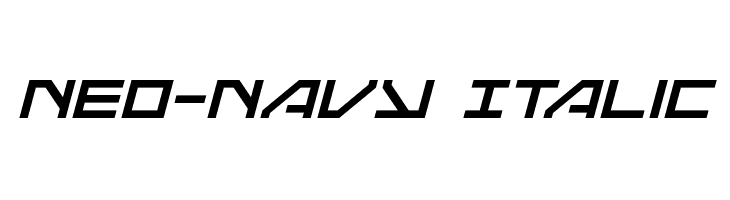
A bold, rounded font with a playful and approachable style.
A dynamic and flowing script font with elegant, fluid letterforms.
A bold, 3D italic font with a modern, geometric style.
A bold, 3D geometric font with outlined characters and a modern industrial feel.
A bold, italic font with a modern, dynamic style and sharp angles.
A bold, geometric font with an industrial and modern feel.
Distressed, bold stencil font with a military-inspired look.
A lively and expressive script font with a playful handwritten feel.
A bold, futuristic font with a three-dimensional, tech-inspired design.
A modern, bold sans-serif font with geometric precision and high legibility.
A bold, modern sans-serif font with clean lines and uniform stroke widths.
A modern, geometric font with rounded edges and uniform stroke width.
An angular, runic-inspired font with sharp, straight lines and a historical feel.
A bold, runic-inspired font with a rugged, historical aesthetic.
A bold, angular font inspired by ancient runic alphabets.
A bold, playful font with thick, rounded characters and a whimsical style.
A bold, modern sans-serif font with uniform stroke width and geometric design.
A bold, italicized sans-serif font with a modern and clean design.
A modern sans-serif font with an italic slant, offering a sleek and professional appearance.
A modern sans-serif font with geometric shapes and uniform stroke width.
A playful, tall handwritten font with a casual and organic feel.
Casual handwritten font with a playful style.
A bold, dynamic script font with flowing, cursive characters and decorative details.
A bold, extruded, hollow font with a three-dimensional, geometric style.
A bold, 3D extruded font with a vintage yet modern appeal.
A modern, geometric font with bold and thin strokes, featuring a 3D effect.
A refined, high-contrast font with elongated, elegant letterforms.
A decorative, handwritten font with elongated, flowing lines and intricate loops.
A whimsical, handwritten font with elongated, flowing lines.